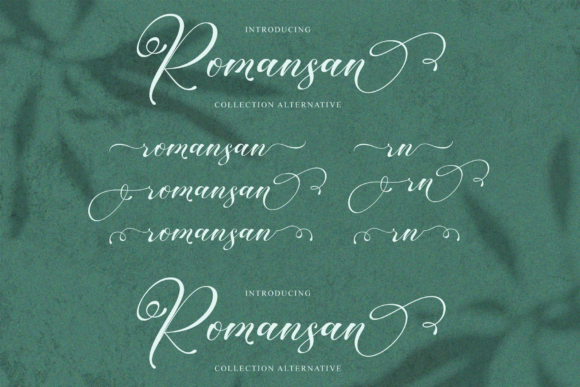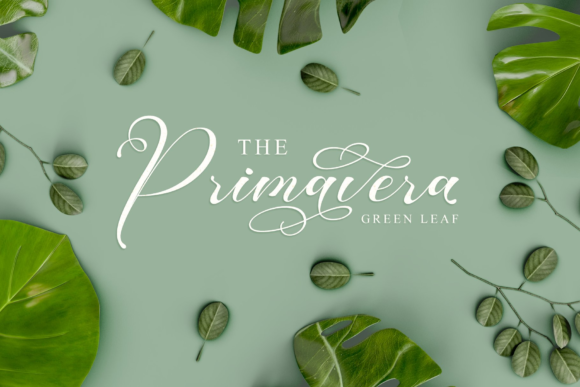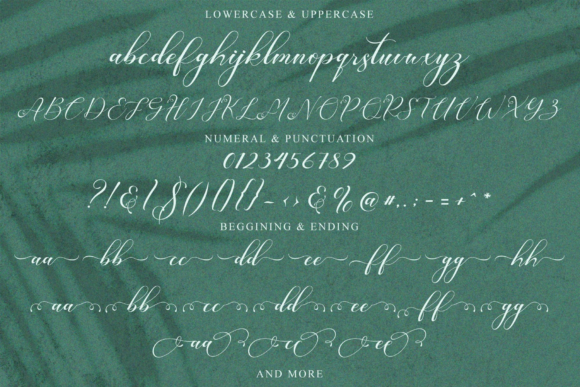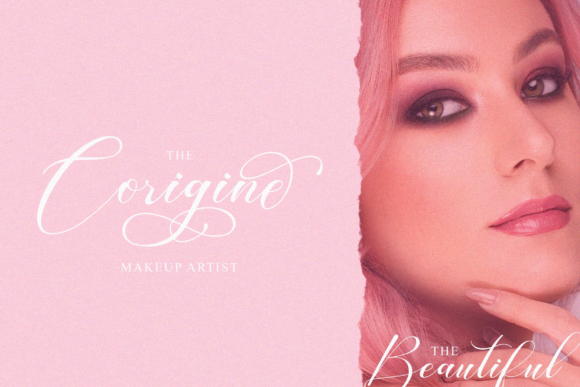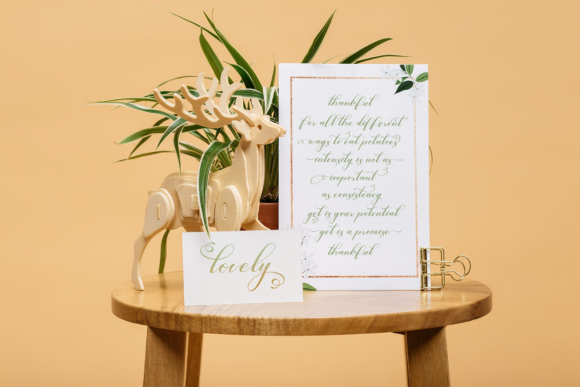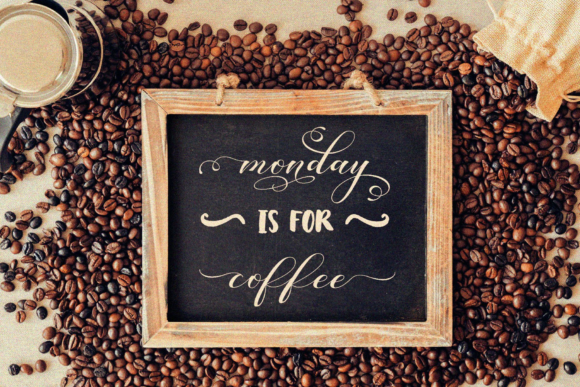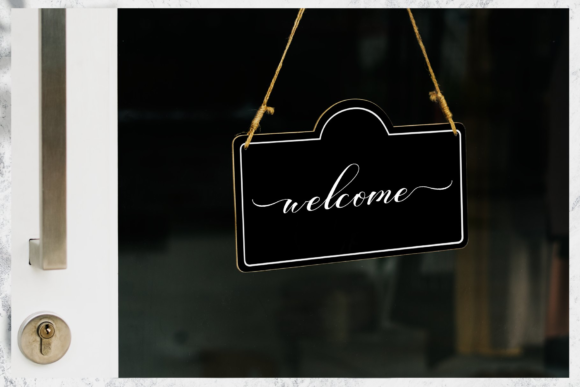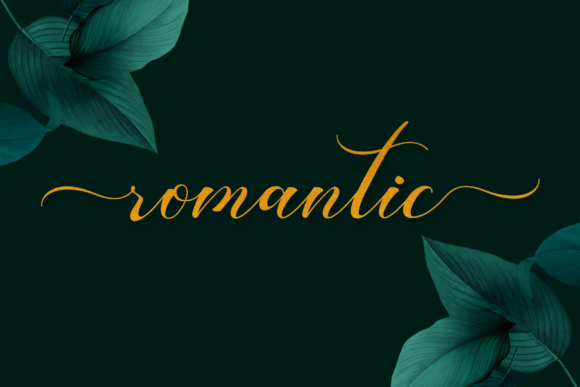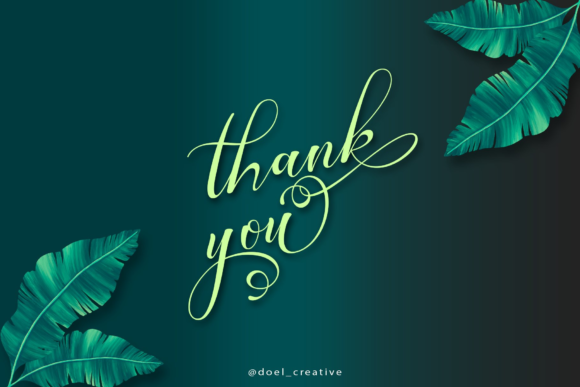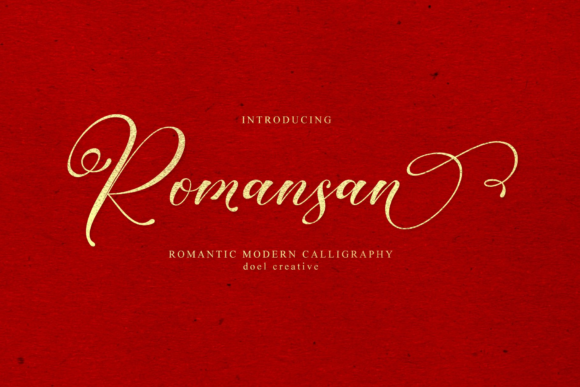
Romansan Font
About Romansan Font
Romansan is a new romantic modern calligraphy font with exquisite accents. It will add a romantic touch to any crafting project!